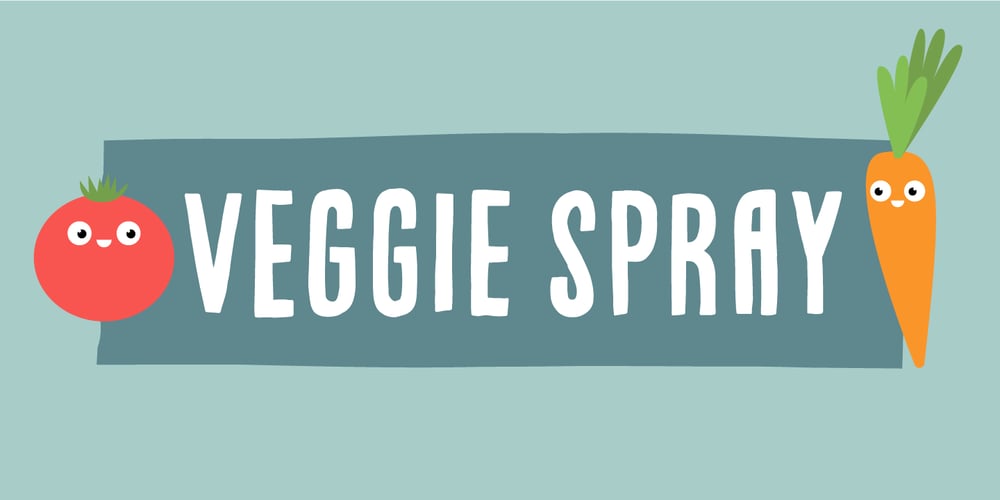
Veggie Spray
Veggie Spray font
Veggie Spray Font Family was designed by Jakob Fischer and published by PizzaDude.dk. Veggie Spray contains 2 styles and family package options. I bet a lot of people would love to have a Veggie Spray – I bet they would use it to turn candy, ice cream, cakes and other fattening products into something more healthy! Well, this font has zero calories and is 100% handmade, and comes with contextual alternates – which means that every letter has 5 different versions!